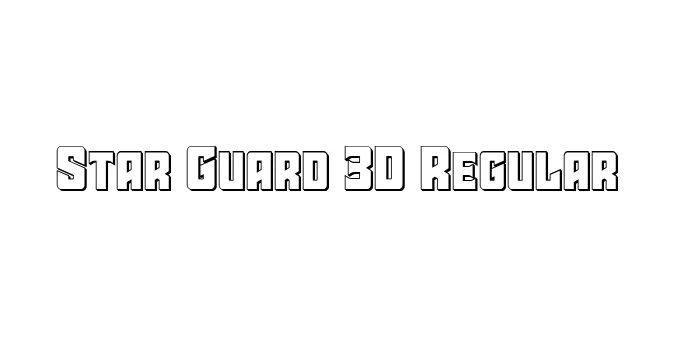
Star Guard 3D Regular
Designed by Dan Zadorozny (Iconian Fonts)
Star Guard 3D Regular is a stylized display typeface that belongs to the extensive Star Guard family, created by the prolific designer Dan Zadorozny. The font is heavily influenced by the superhero and sci-fi aesthetic of the mid-20th century, featuring bold, blocky letterforms that project a sense of strength and authority. The 3D variant specifically incorporates a fixed perspective extrusion, giving the characters a sense of depth and weight that makes them ideal for high-impact visual communication.
Throughout its history, this typeface has become a favorite among independent creators and graphic designers for its ability to simulate vintage comic book titles without requiring complex manual effects. Its clean lines and sharp angles maintain readability even with the added dimensional layer, ensuring that it remains functional across both digital and print mediums. As part of the Iconian Fonts library, it serves as a quintessential example of modern retro-futurism, blending classic power-lettering with contemporary digital precision.
Star Guard 3D Regular Best Uses
Main menu titles and loading screens for action-adventure genres.
Eye-catching covers for graphic novels and science fiction paperbacks.
Bold text for t-shirts, posters, and sports-related apparel.
Logos for fitness centers, esports teams, or toy packaging.